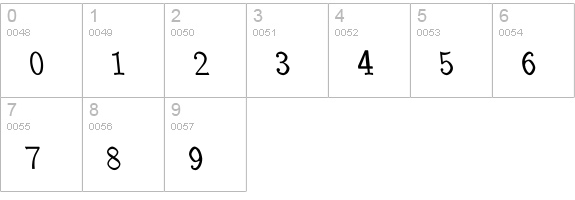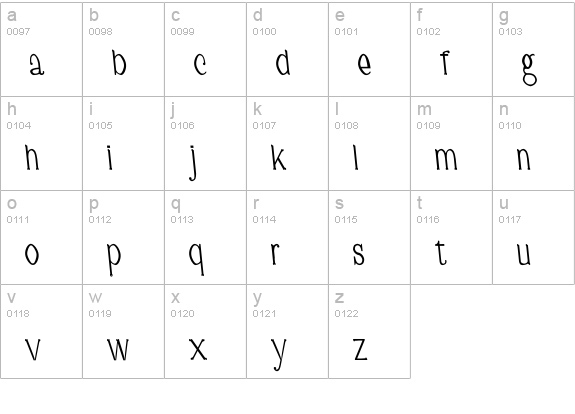
CM_Funny Regular Font Details
CM_Funny Regular is the standard, neutral variant in the CM_Funny typeface family \xE2\x80\x94 well suited to general body text, paragraphs, and standard typographic work.
Introducing CM_Funny Regular font, a delightful and whimsical typeface that exudes charm and playfulness. This font is perfect for adding a touch of humor to your designs, whether it be for posters, greeting cards, invitations, or social media graphics. With its rounded edges and quirky details, CM_Funny Regular is sure to bring a smile to anyone who sees it. The best part? CM_Funny Regular is completely free to download at FontsMarket.com! So go ahead and add this fun and cheerful font to your collection today. Let your creativity shine with CM_Funny Regular and bring joy to your projects with its lighthearted style.